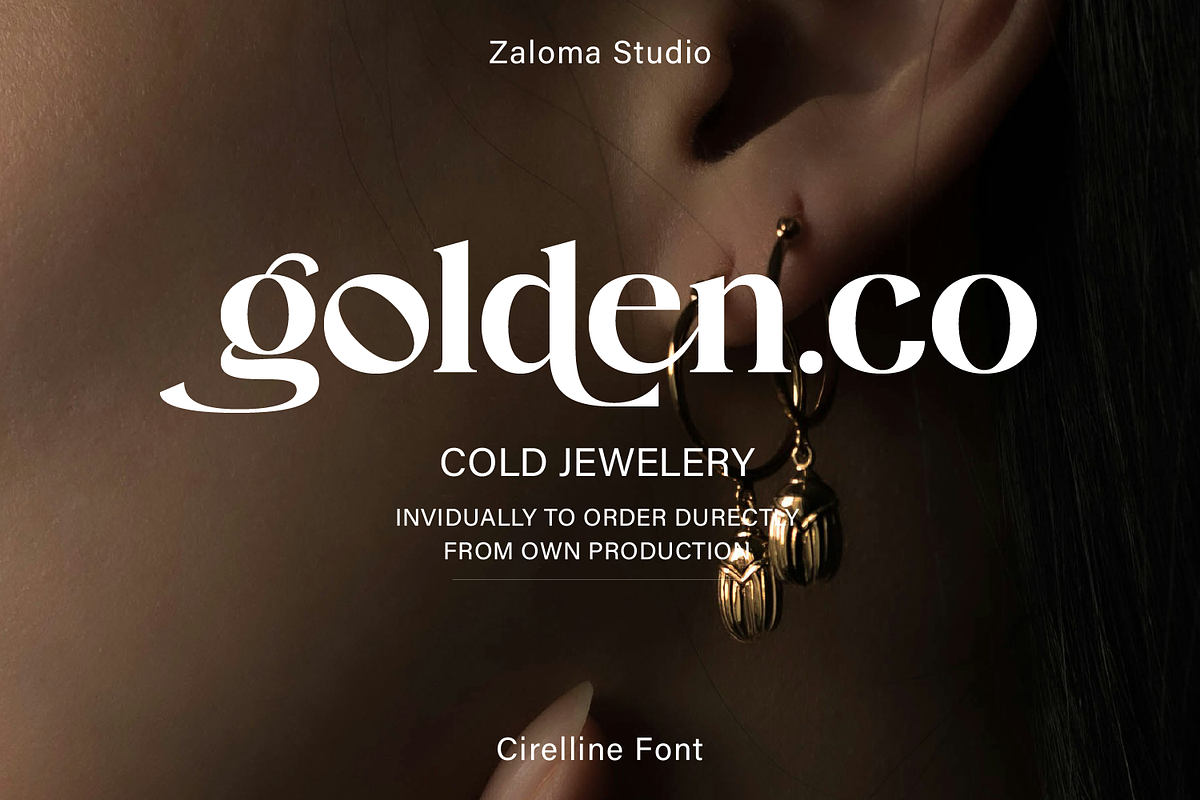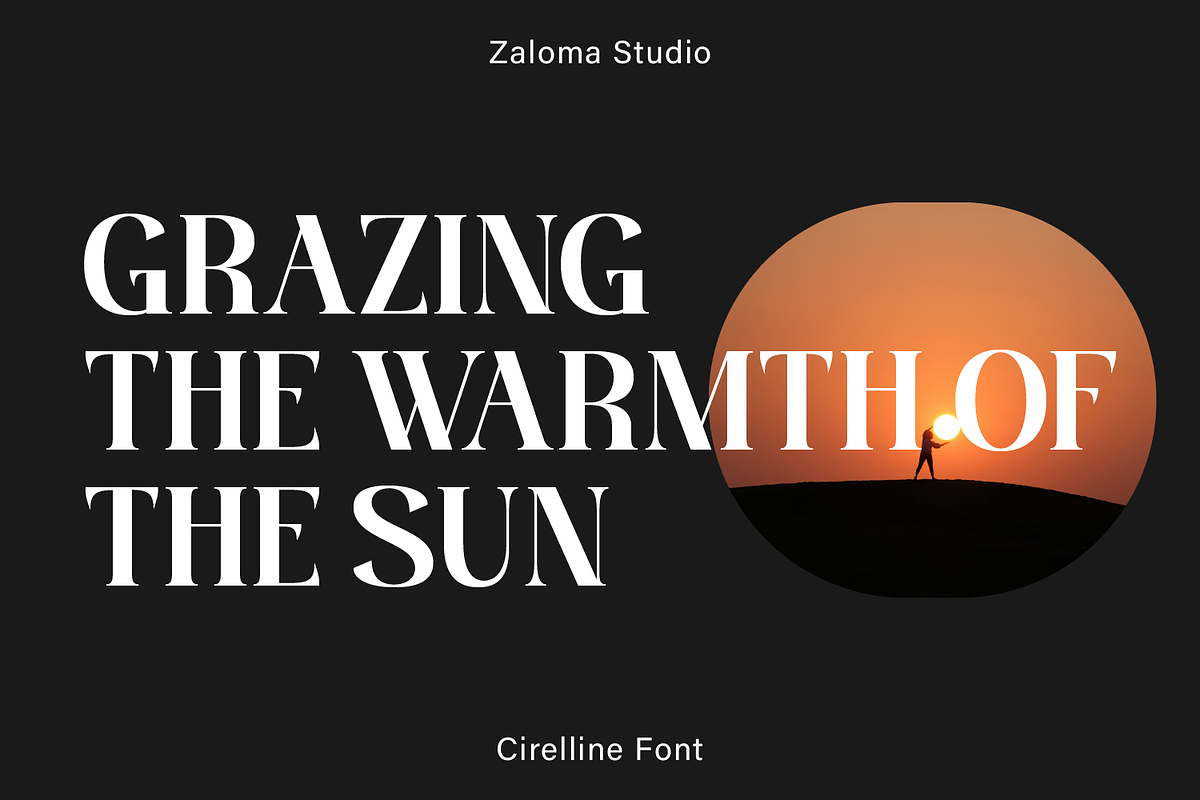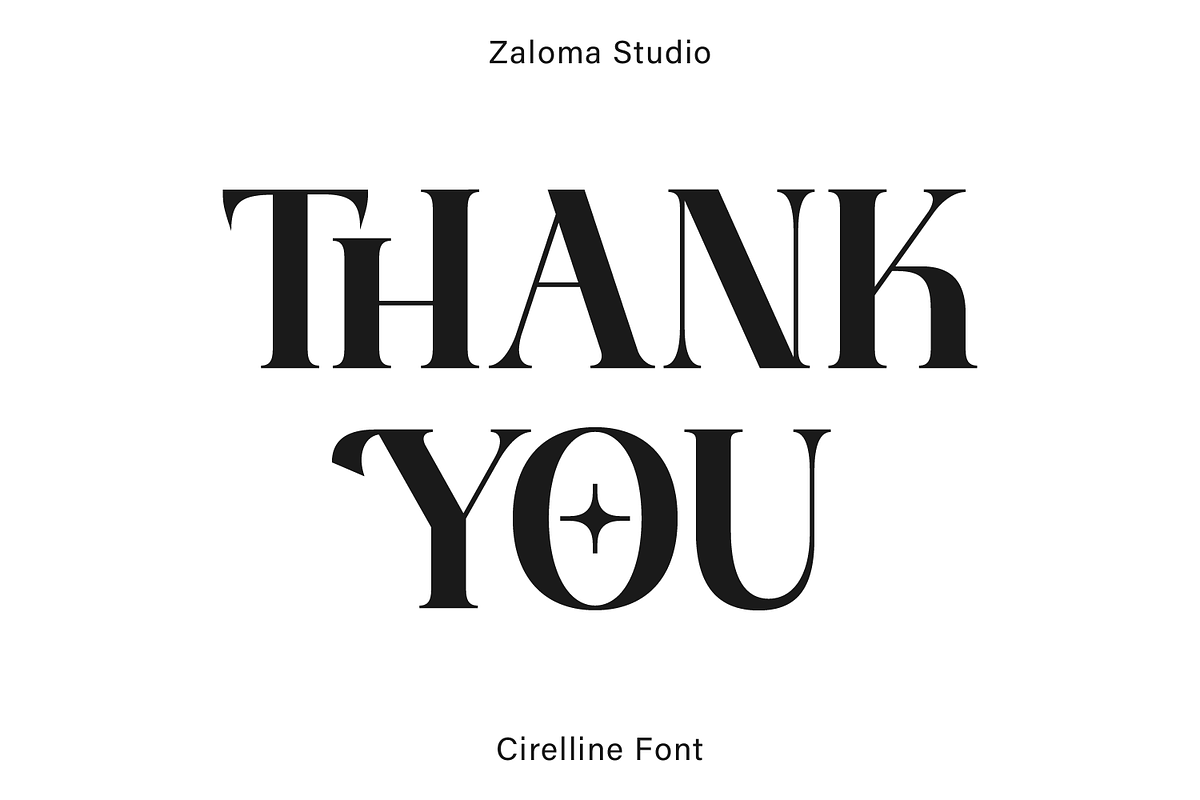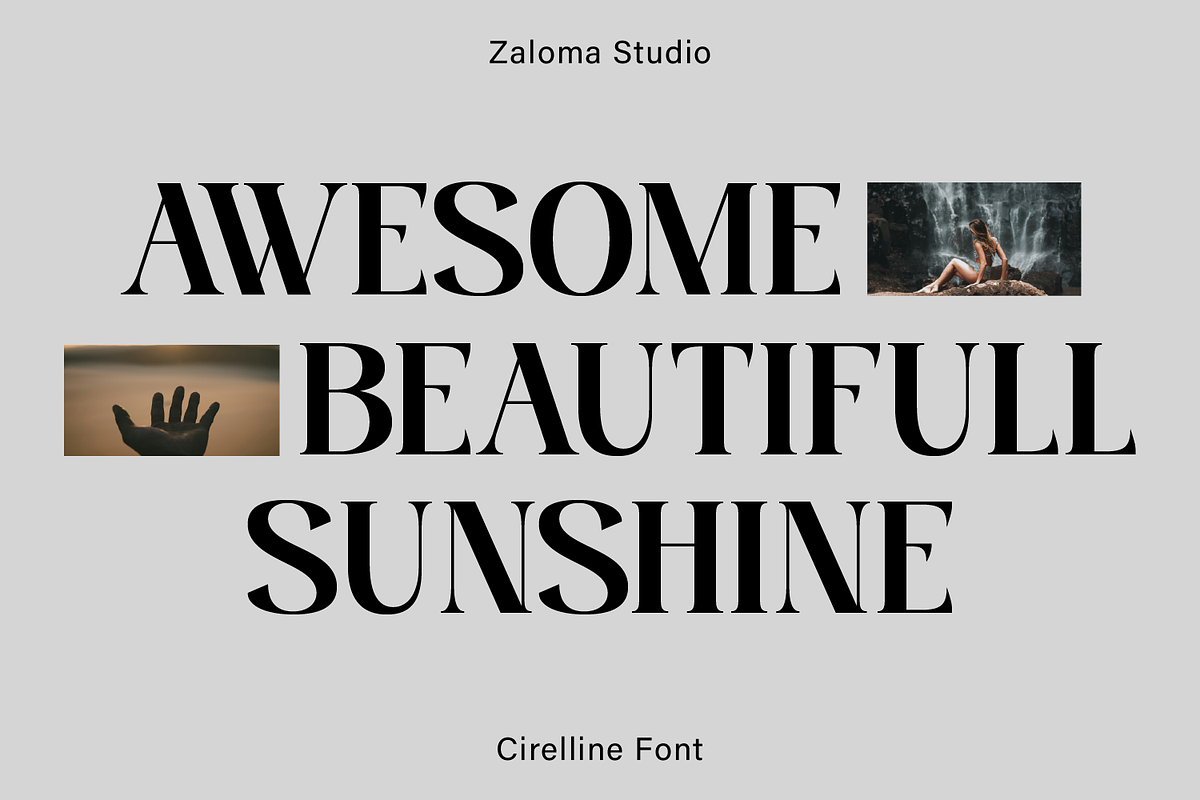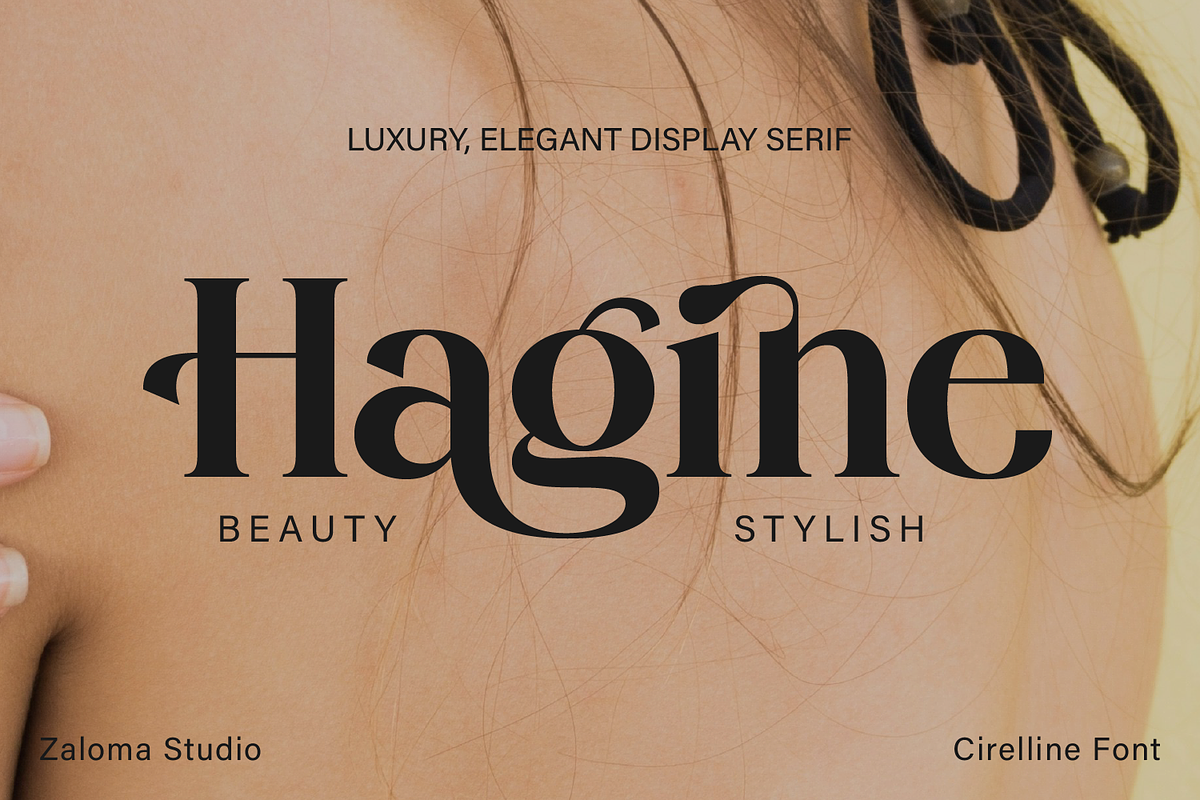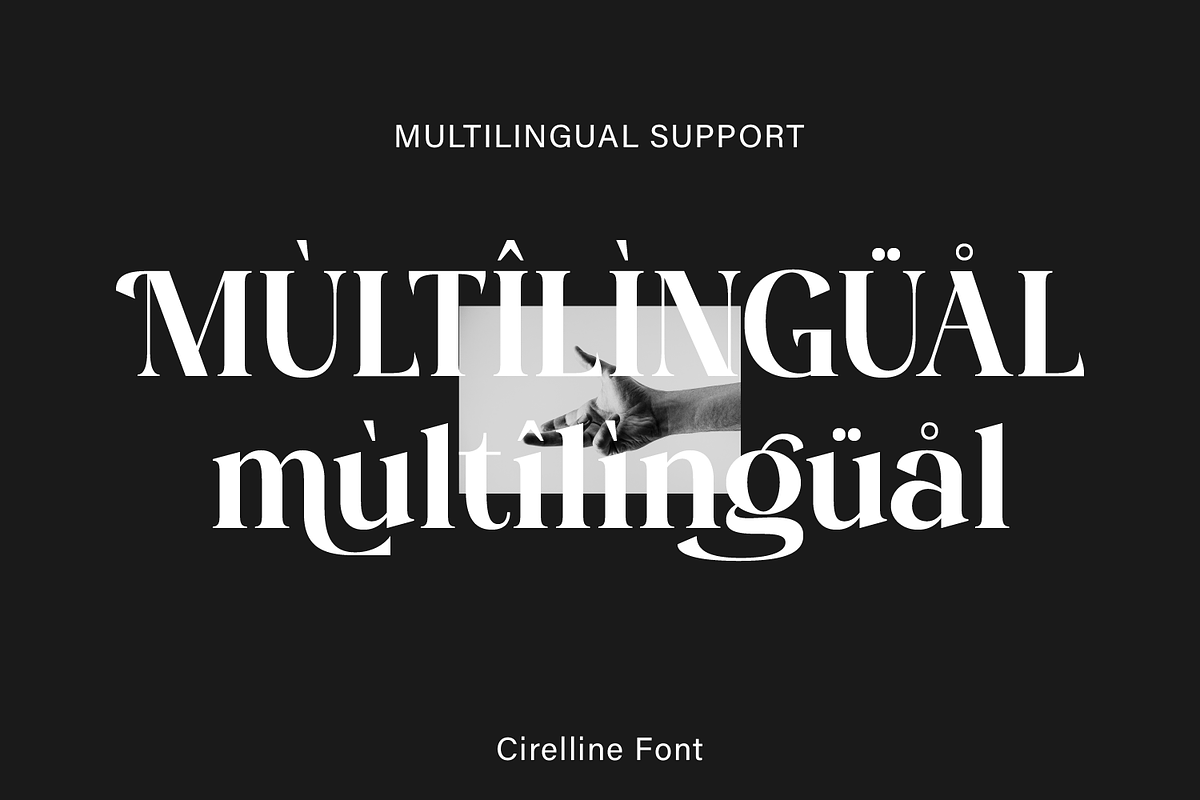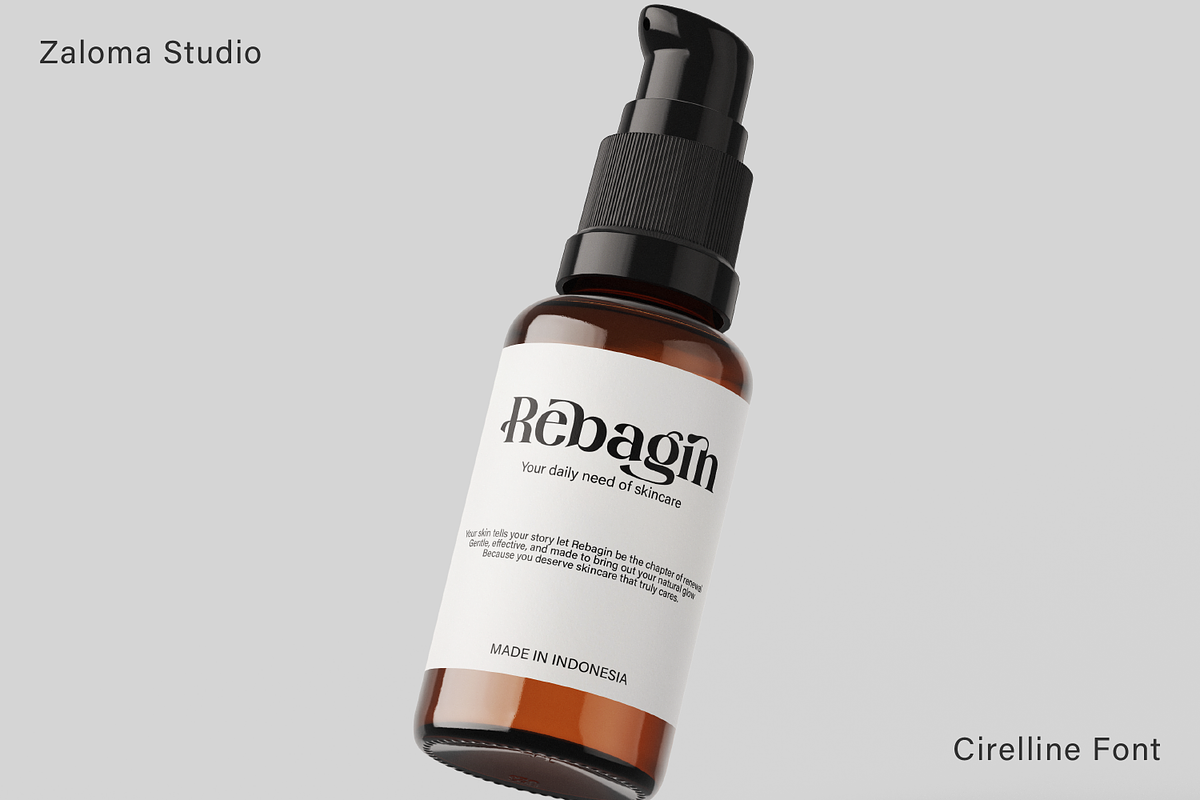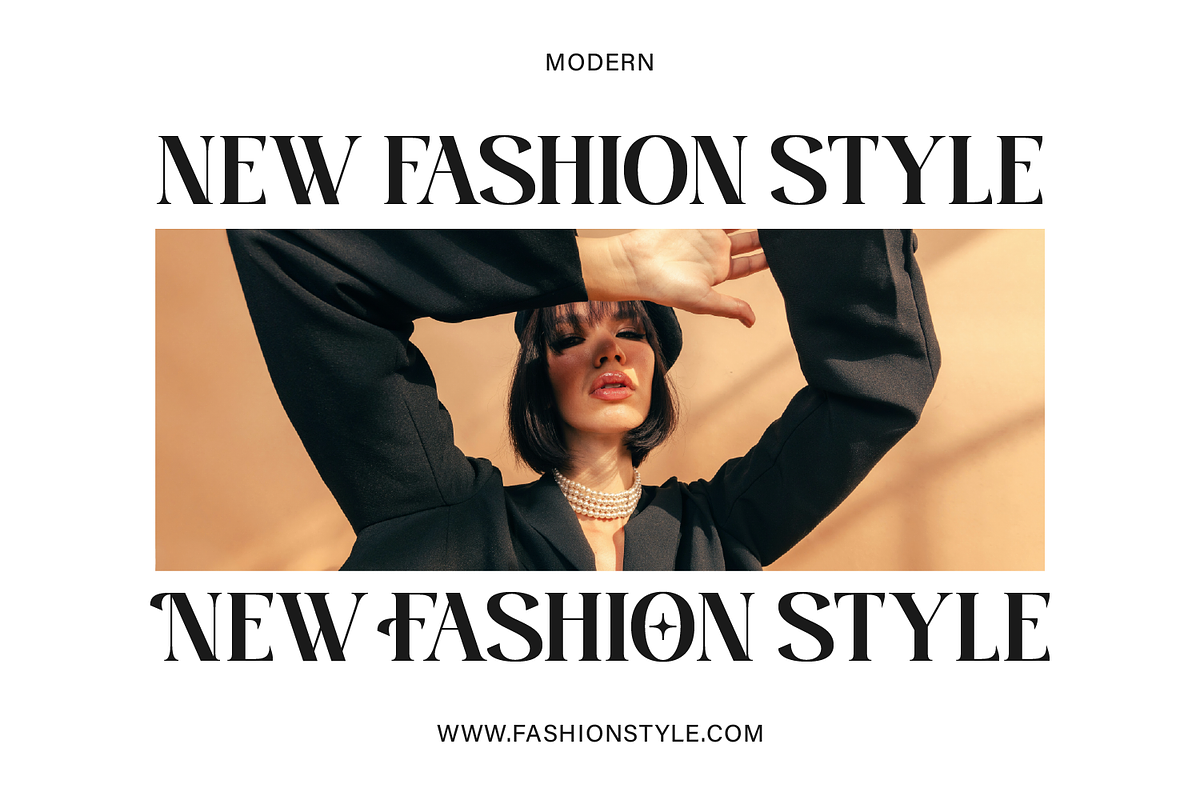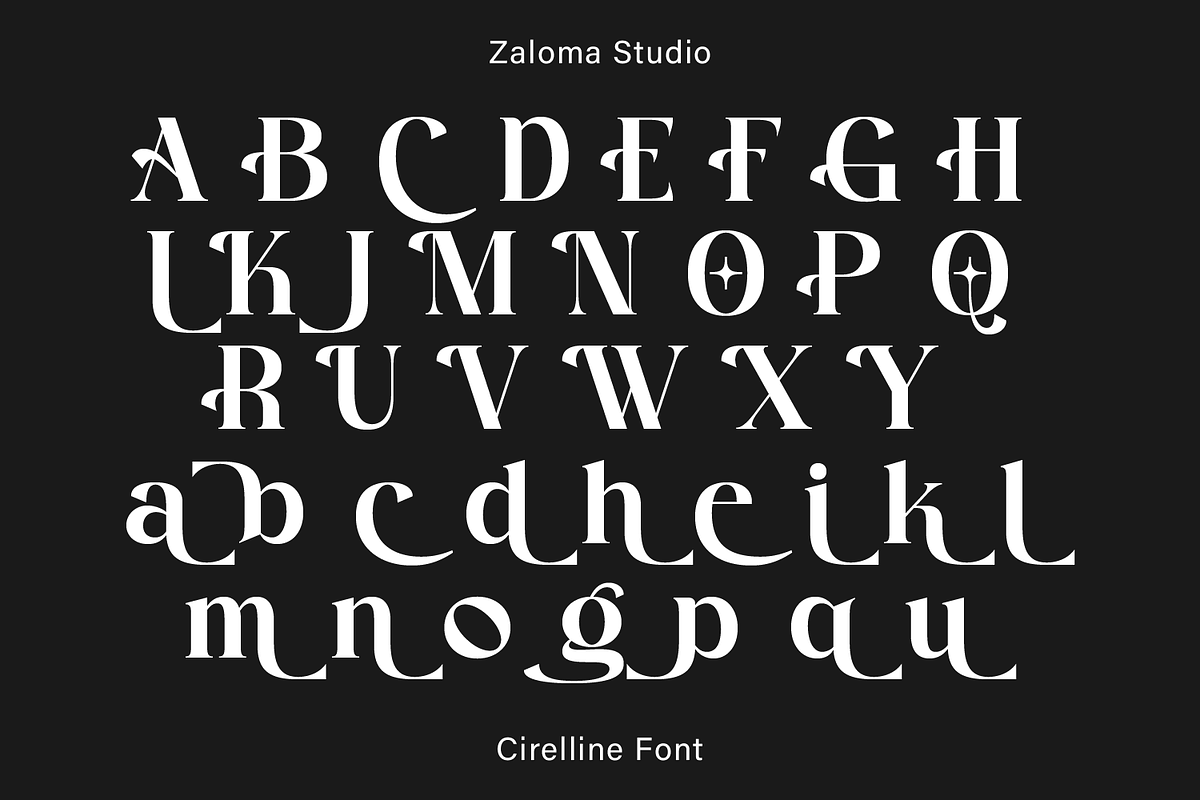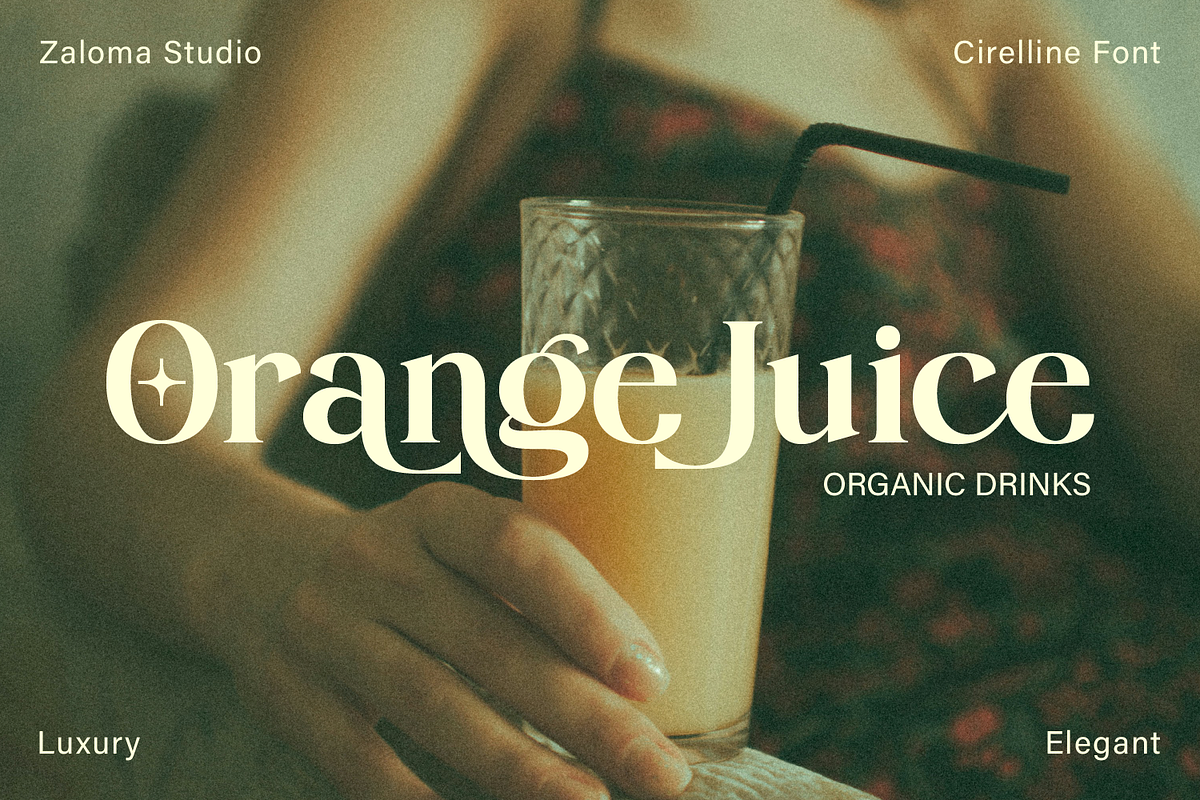
Cirelline
Cirelline is an elegant display serif font that radiates luxury and sophistication in every letterform. Carefully crafted for designs that require a refined, high-end, and graceful appearance, Cirelline features delicate serifs, balanced contrast, and elegant detailing. Perfect for premium branding, cosmetic packaging, fashion magazines, wedding invitations, and upscale editorials Cirelline is more than just a font; it's a visual statement that elevates the exclusivity of your design.